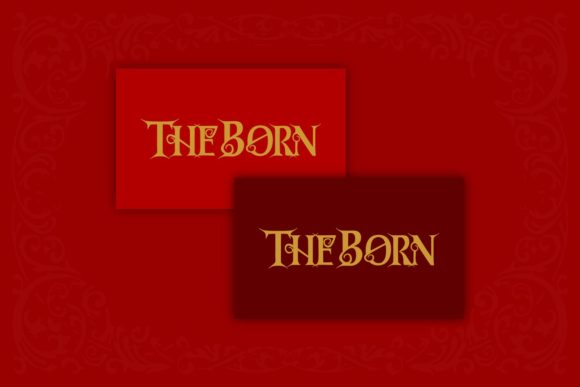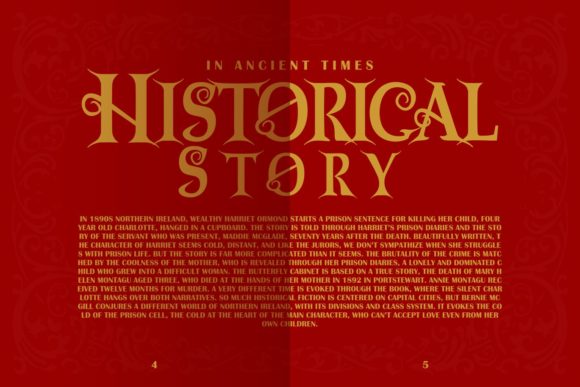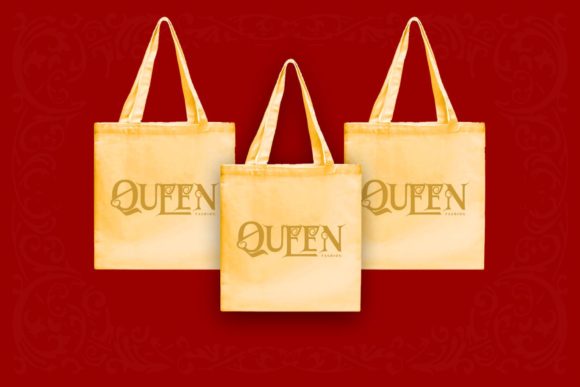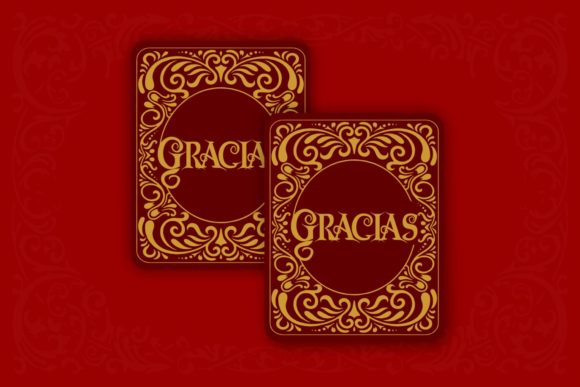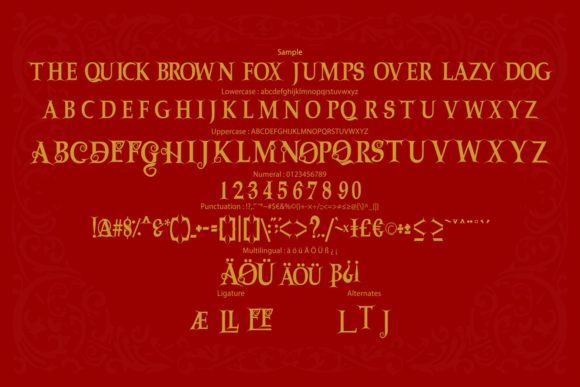
Dragon Font: Unleash Your Creativity with this Unique Display Font
Dragon is an incredibly unique display font that has been masterfully designed to become a true favorite among designers and crafters. With its bold and eye-catching style, this font has the potential to bring each of your creative ideas to the highest level. In this article, we’ll dive into the features and benefits of the Dragon font, and explore how it can elevate your designs and take your creativity to new heights.
What Makes Dragon Font So Special?
The Dragon font is a true standout in the world of typography. Its unique design combines bold lines, intricate details, and a touch of fantasy to create a truly one-of-a-kind font. Whether you’re working on a logo, a poster, or a digital project, the Dragon font is sure to grab attention and make your design stand out from the crowd.
Key Features of Dragon Font
• Unique Design: The Dragon font features a bold and intricate design that is sure to make your designs stand out.
• High-Quality Vectors: The font is carefully crafted with high-quality vectors, ensuring that it looks great in any size or resolution.
• Easily Customizable: The Dragon font is easy to customize, allowing you to adjust the size, color, and style to fit your design needs.
• Multilingual Support: The font supports multiple languages, making it a great choice for designers working on international projects.
Benefits of Using Dragon Font
So why choose the Dragon font for your next design project? Here are just a few benefits of using this amazing font:
• Adds Visual Impact: The Dragon font is designed to grab attention and add visual impact to your designs.
• Enhances Creativity: With its unique and bold style, the Dragon font can help inspire your creativity and take your designs to the next level.
• Versatile: The font is versatile and can be used in a wide range of design projects, from logos and posters to digital graphics and more.
• Professional Quality: The Dragon font is of professional quality, making it perfect for designers who need high-quality fonts for their clients.
• Use it for Headlines: The Dragon font is perfect for headlines and titles, where its bold and eye-catching style can really shine.
In conclusion, the Dragon font is an incredibly unique and versatile display font that is sure to bring your creative ideas to the highest level. With its bold and eye-catching style, high-quality vectors, and easily customizable design, this font is perfect for designers and crafters looking to add visual impact and enhance their creativity. Whether you’re working on a logo, poster, or digital project, the Dragon font is a great choice. So why wait? Download the Dragon font today and start taking your designs to new heights!